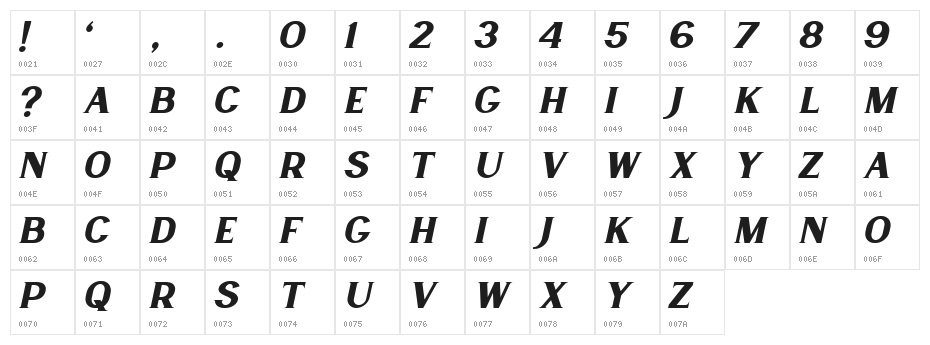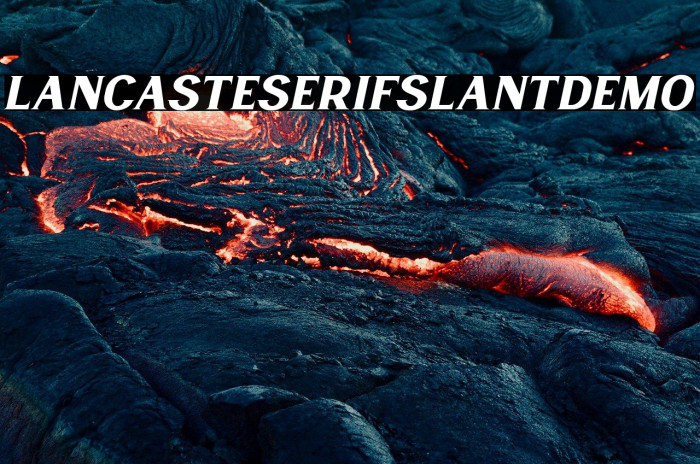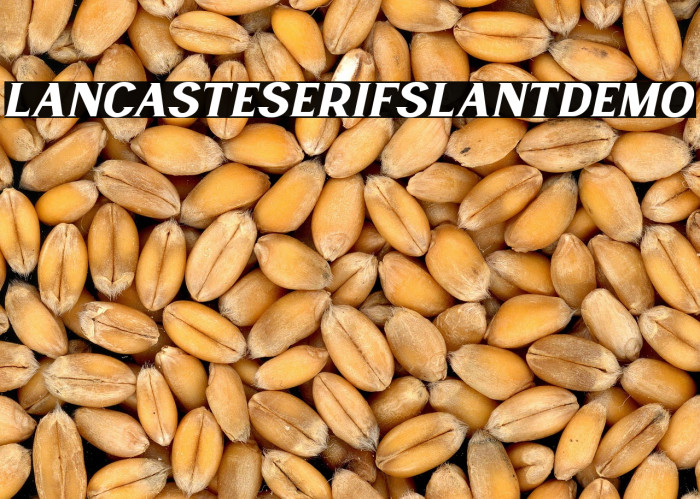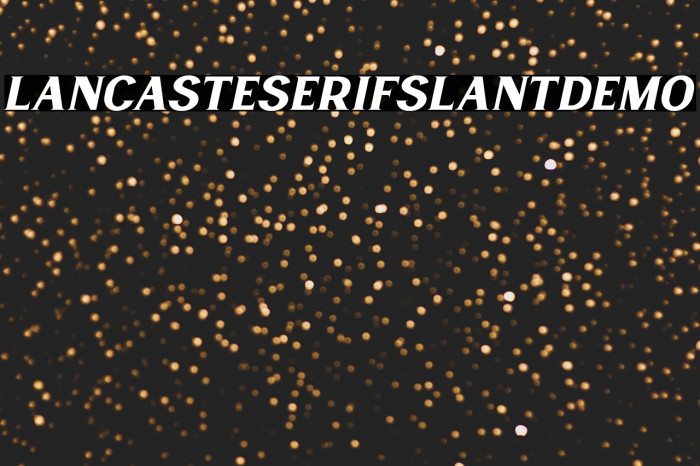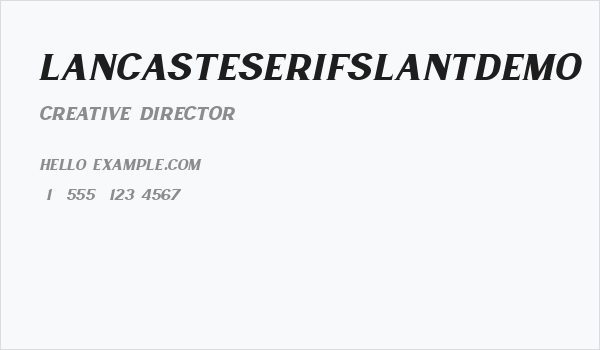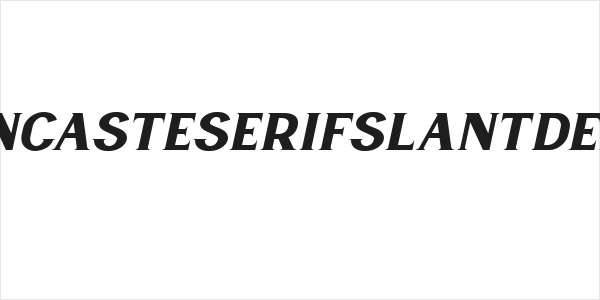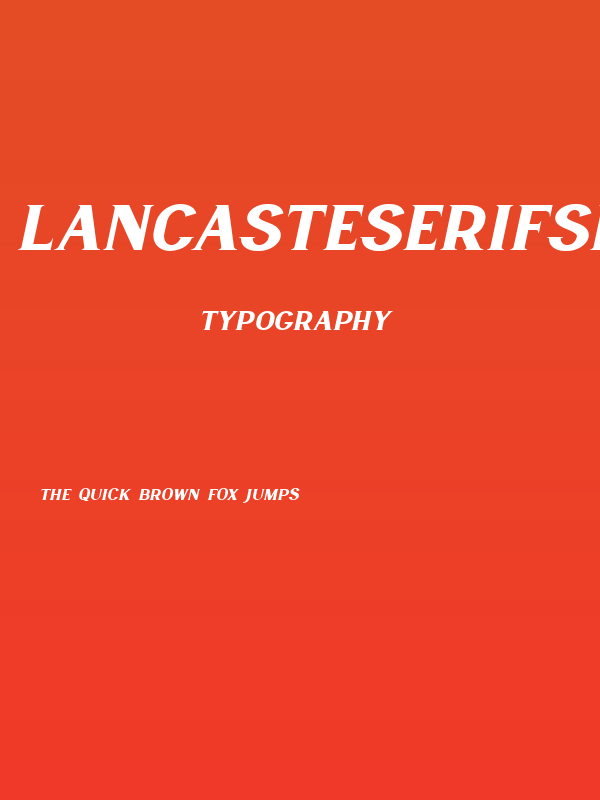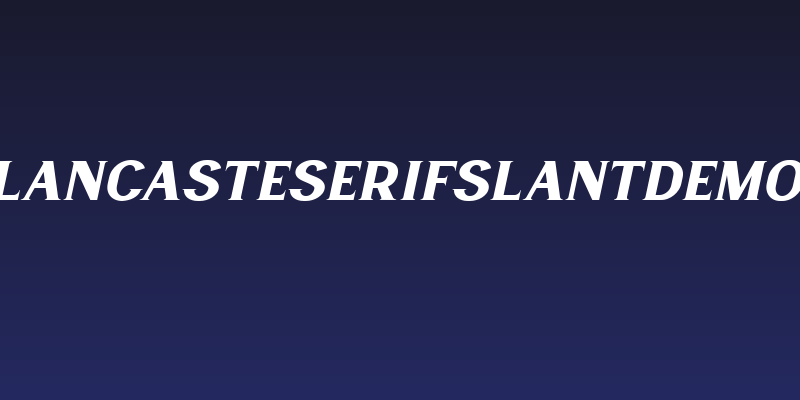
LancasteSerifSlantDemo Font
LancasteSerifSlantDemo Description
This font features a classic serif style with a noticeable slant, giving it an elegant and dynamic appearance. The serifs are sharp and pronounced, adding a touch of sophistication. The uppercase letters are bold and commanding, while the lowercase letters maintain a consistent style that complements the overall design. The numerals are clear and distinct, ensuring readability. Special characters are well-integrated, maintaining the font's cohesive look. This font's slanted design adds a sense of movement and flair, making it suitable for various creative applications.
| Use Case | Headlines, Logos, Editorial design |
| Proposed Projects | Ideal for editorial design, book covers, branding, and elegant invitations. |